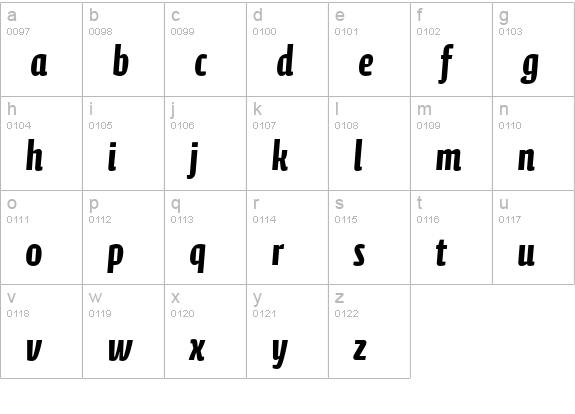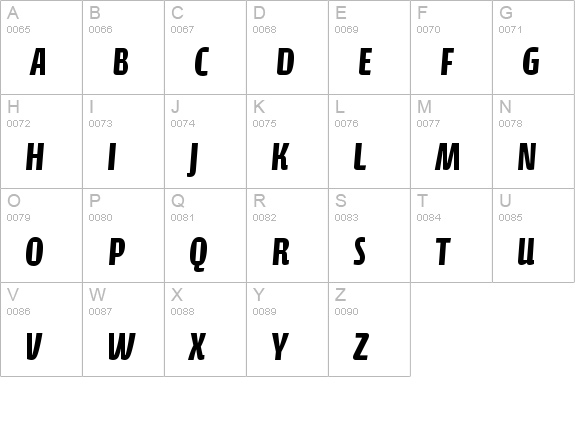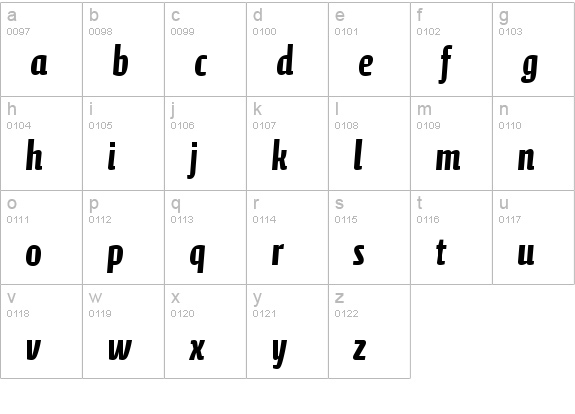
Calcite Pro Bold is a strong, high-contrast variant in the Calcite typeface family \xE2\x80\x94 well suited to headlines, attention-grabbing titles, and strong calls-to-action.
Introducing Calcite Pro Bold font, a modern and versatile typeface that exudes confidence and elegance. With its bold and impactful design, Calcite Pro Bold is perfect for making a statement in any project or design. This striking font features clean lines and sharp edges, giving it a contemporary feel that is sure to capture attention. But the best part? Calcite Pro Bold font is completely free to download at FontsMarket.com! That's right, you can elevate your designs with this premium font without having to spend a dime. Whether you're working on branding, advertising, or editorial projects, Calcite Pro Bold is the perfect choice to add a touch of sophistication and style. Don't miss out on this amazing opportunity to enhance your creative work with Calcite Pro Bold font, available for free at FontsMarket.com.